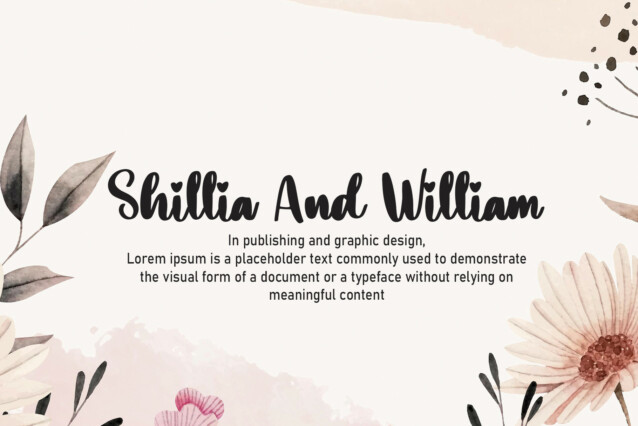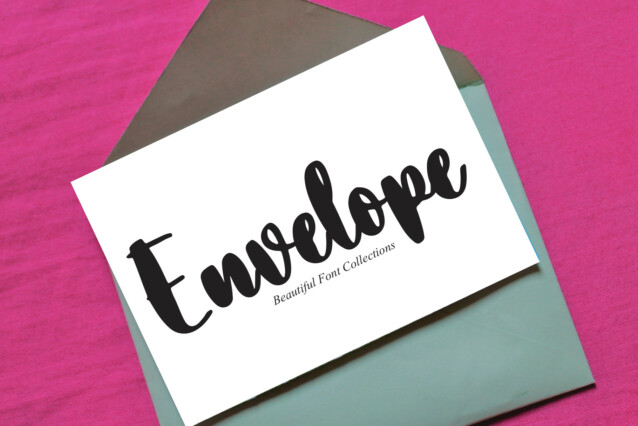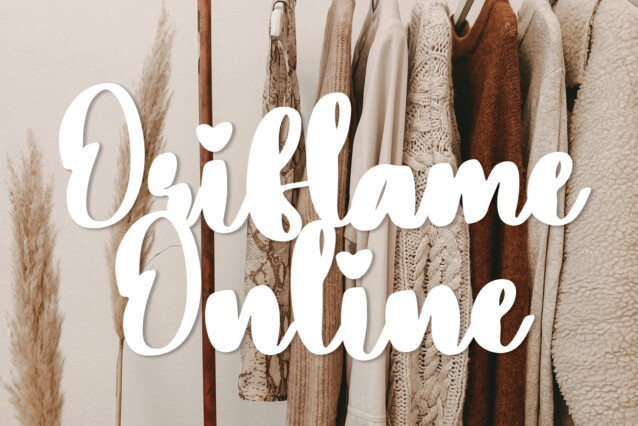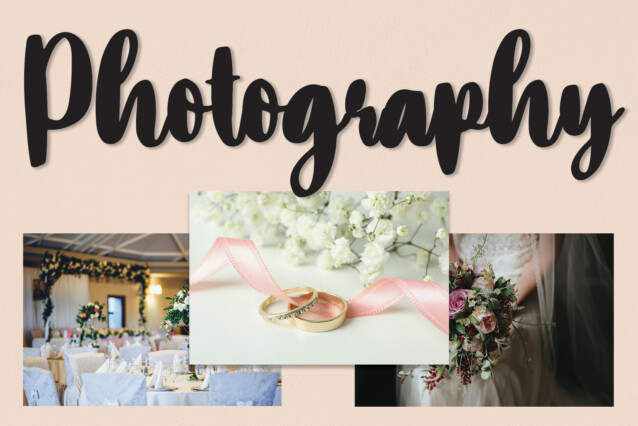
Pastry Script Typeface
Pastry’s latest style letters are perfect for wall displays, wedding invitations, social media post logos, advertisements, product packaging, product designs, labels, photography, watermarks, invitations, stationery, and any project that requires a handwritten taste.